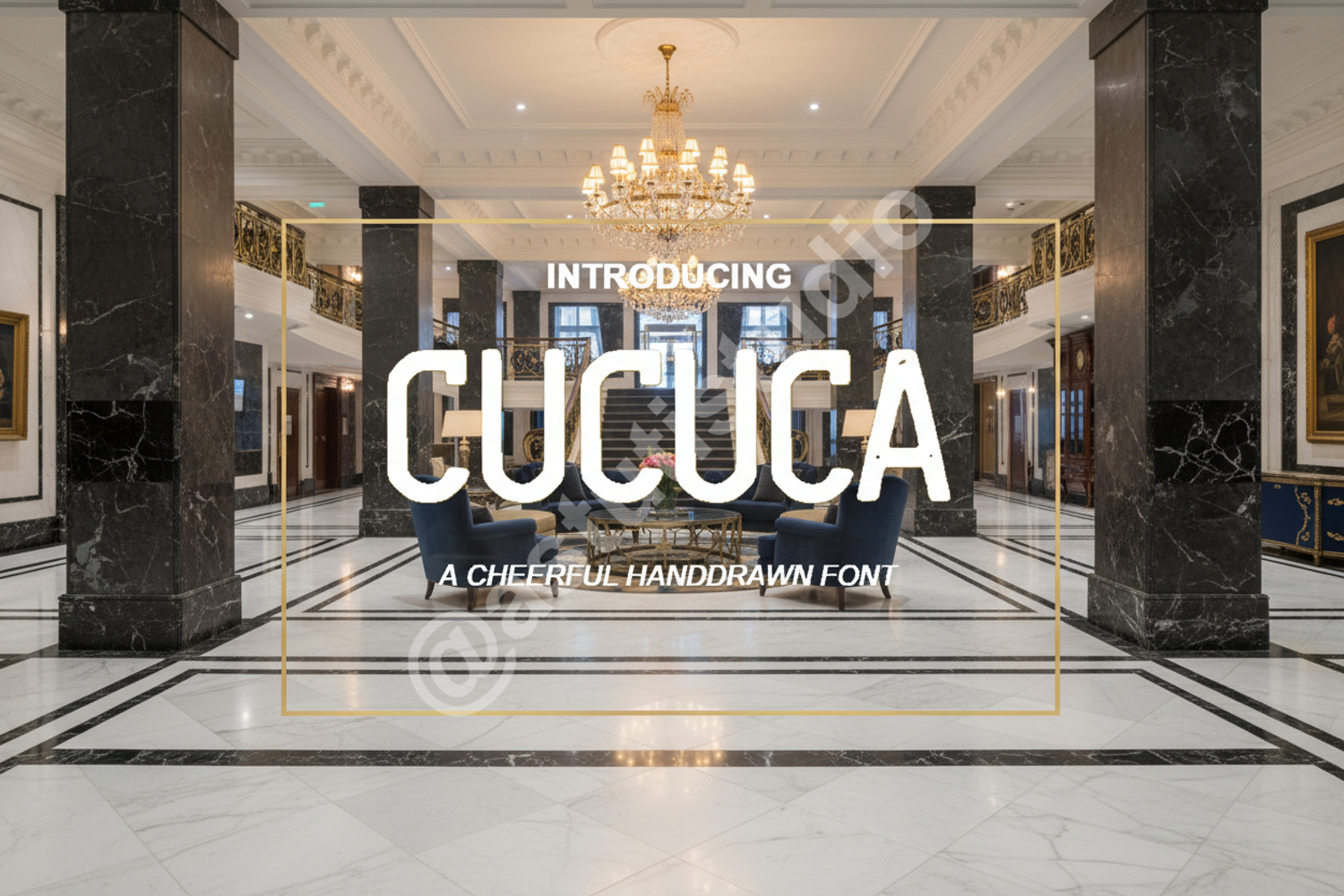
Cucuca - Modern Playful Display Font
Cucuca
Elevate your creative projects with Cucuca, a premium display font designed to bring a touch of modern sophistication and playful energy to your work. Crafted with meticulous attention to detail, Cucuca offers a unique silhouette that balances artistic flair with professional clarity, making it a versatile choice for designers seeking a high-end look.
- Brand Identity: Create memorable logos and distinctive brand marks that resonate with your audience.
- Social Media: Design eye-catching Instagram quotes, Pinterest graphics, and YouTube thumbnails.
- Product Packaging: Perfect for modern labels, boutique packaging, and merchandise design.
- Print Media: Ideal for bold posters, event flyers, and editorial magazine layouts.
- Creative Projects: Excellent for wedding invitations, greeting cards, and personalized stationery.